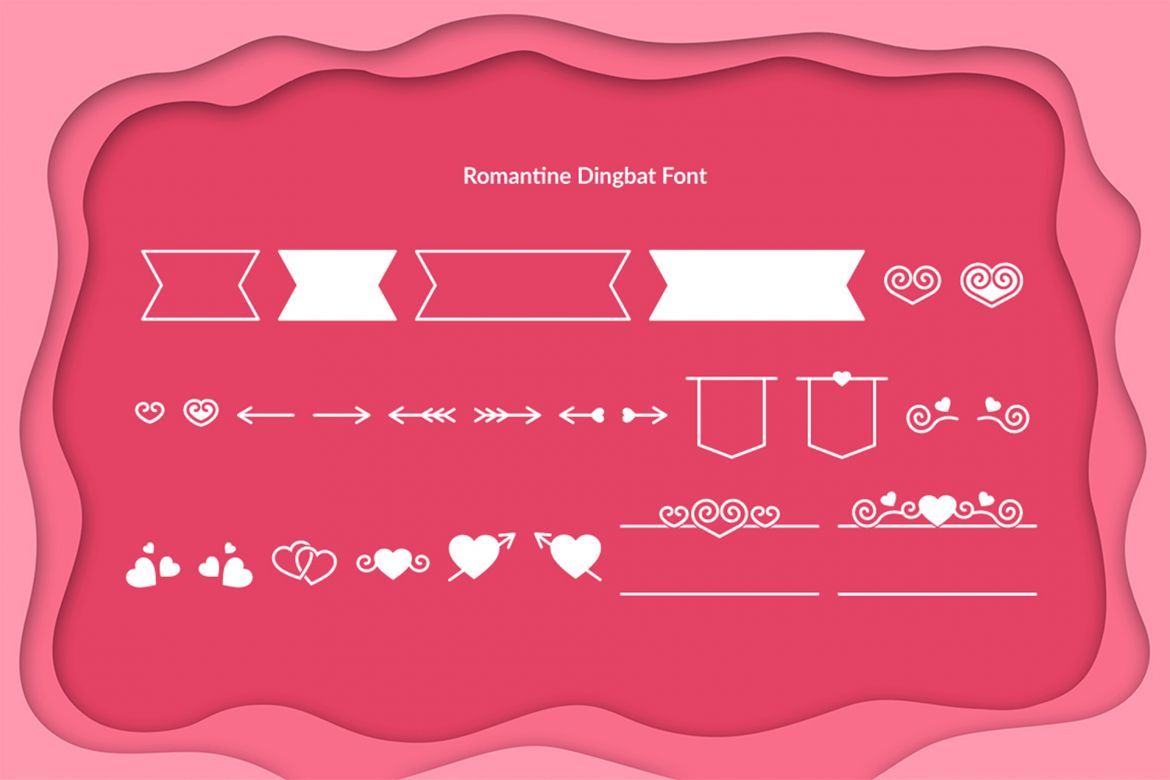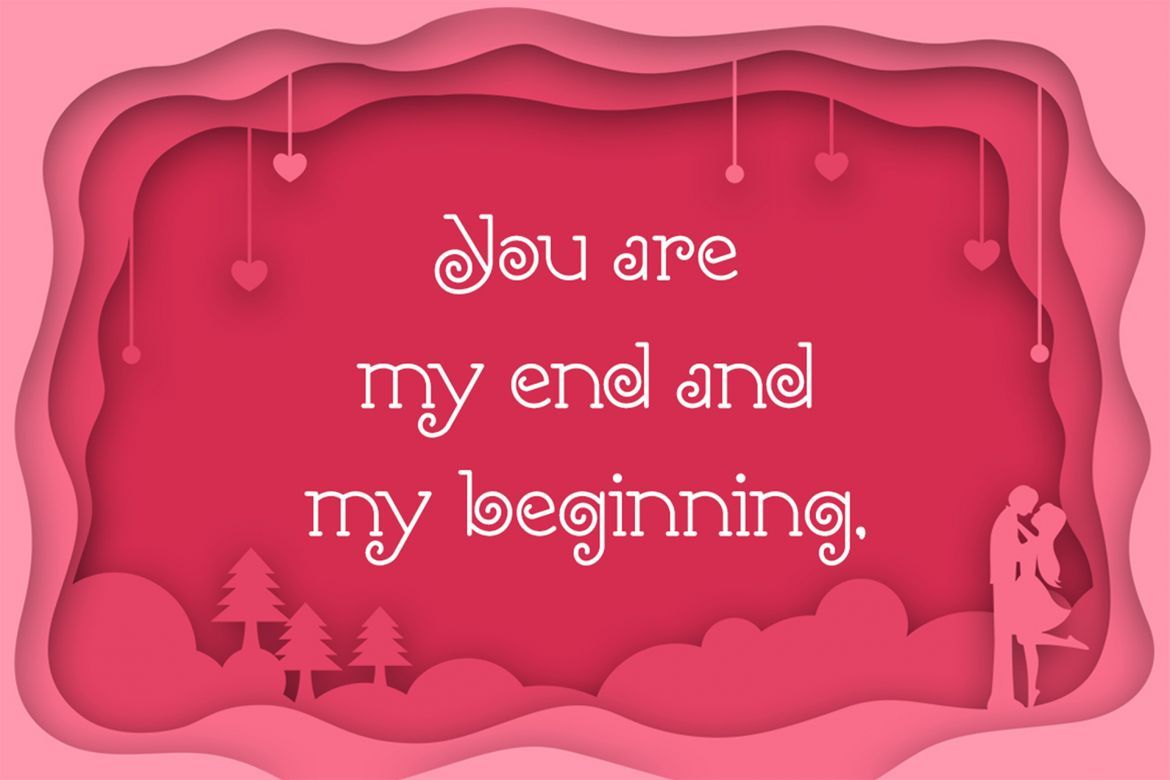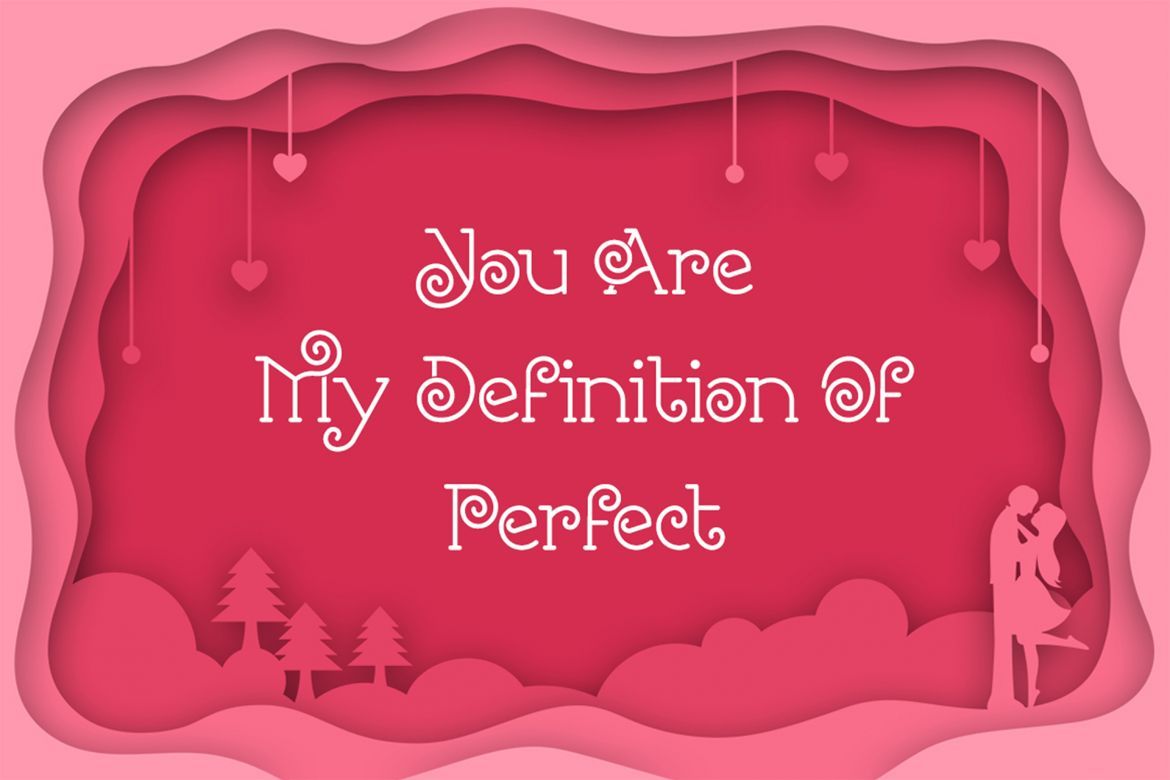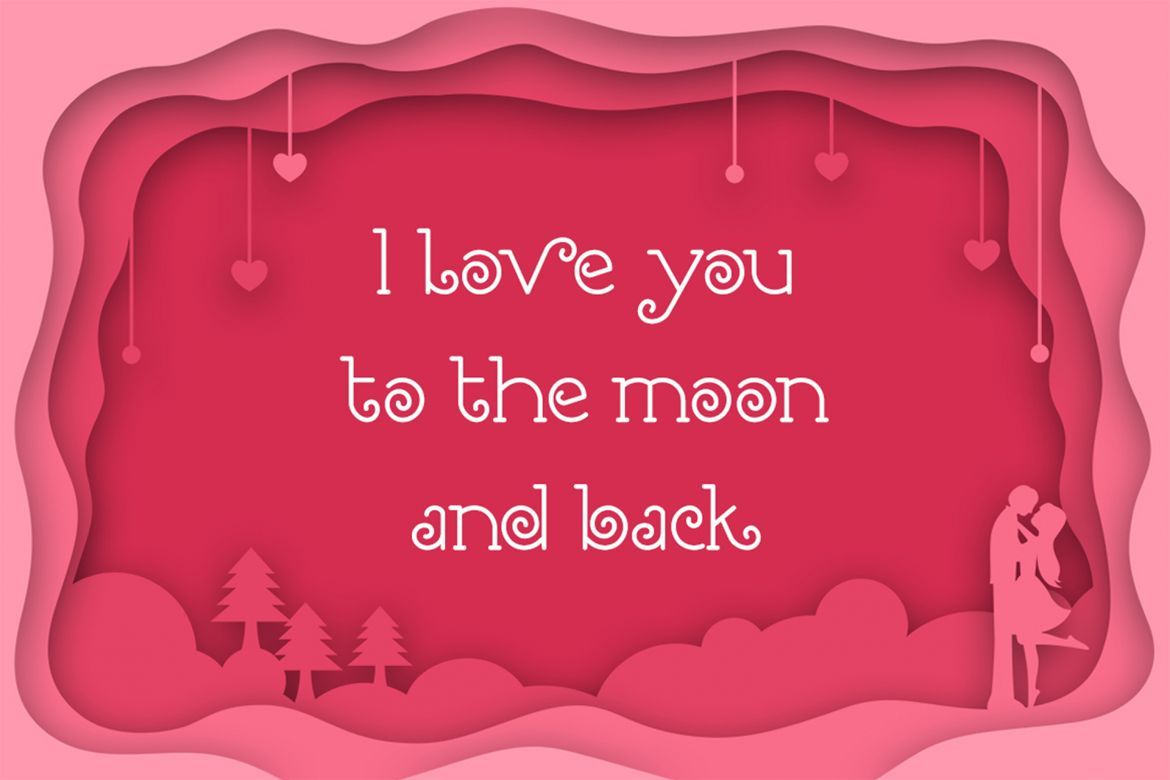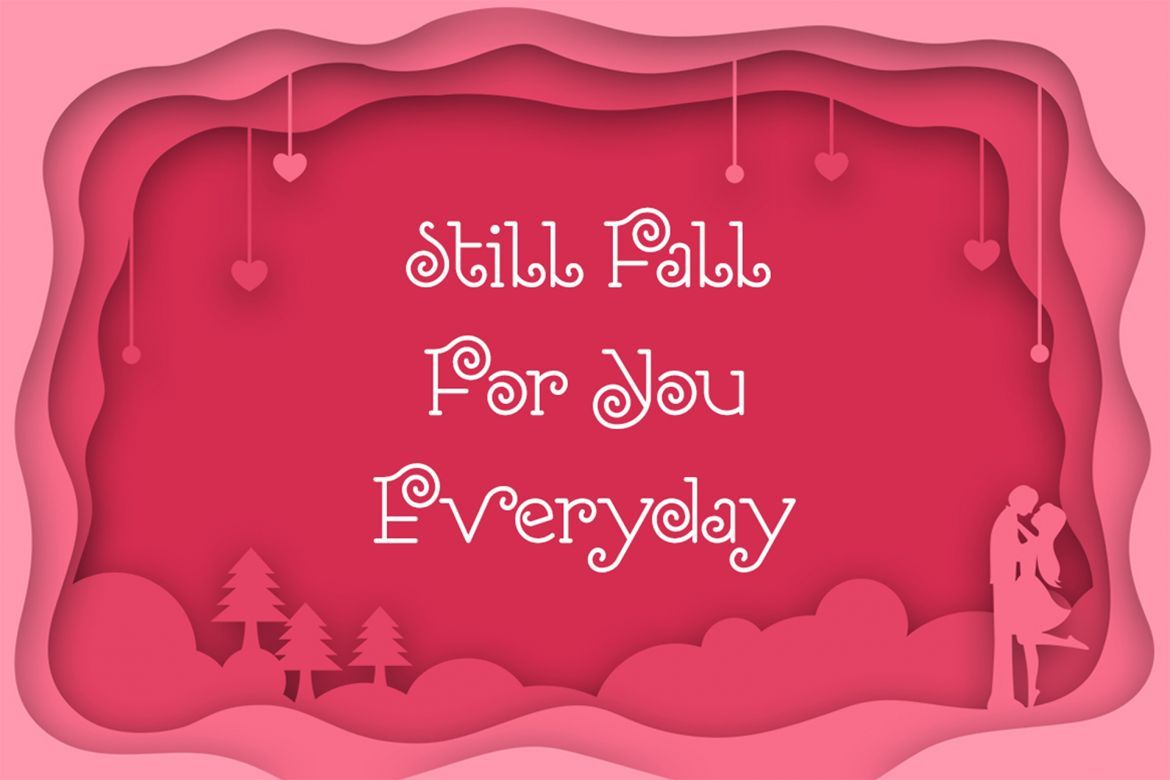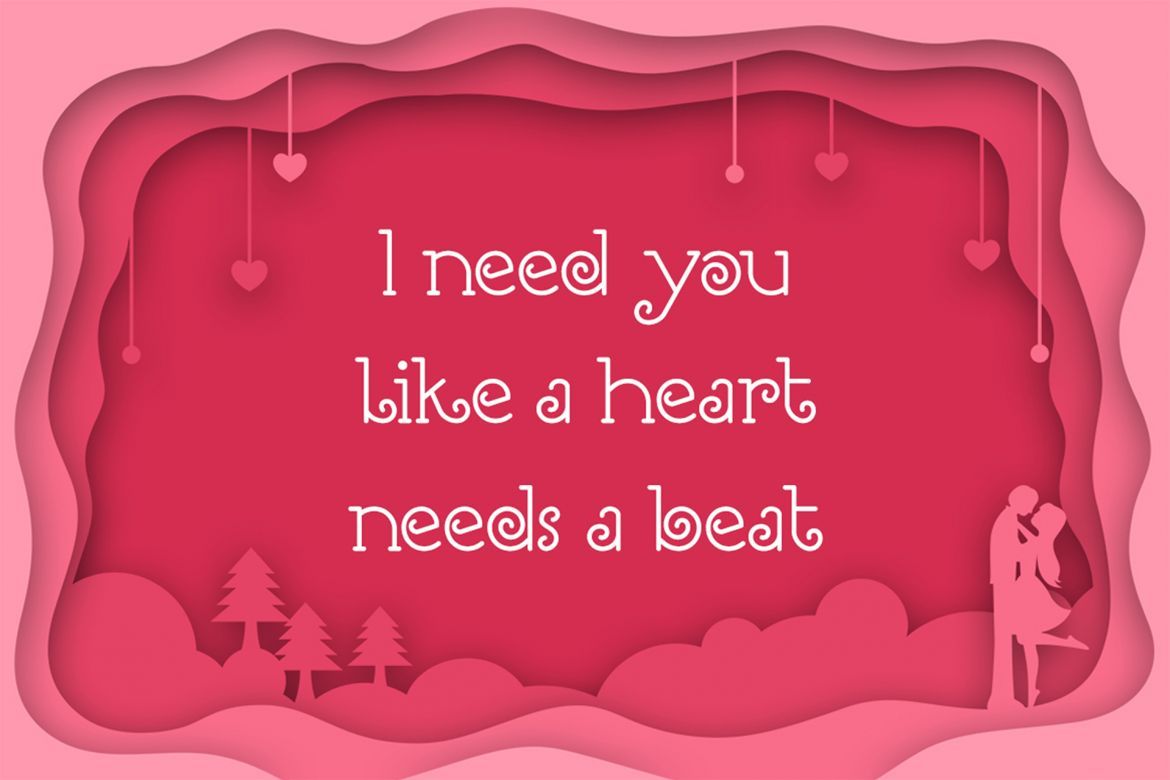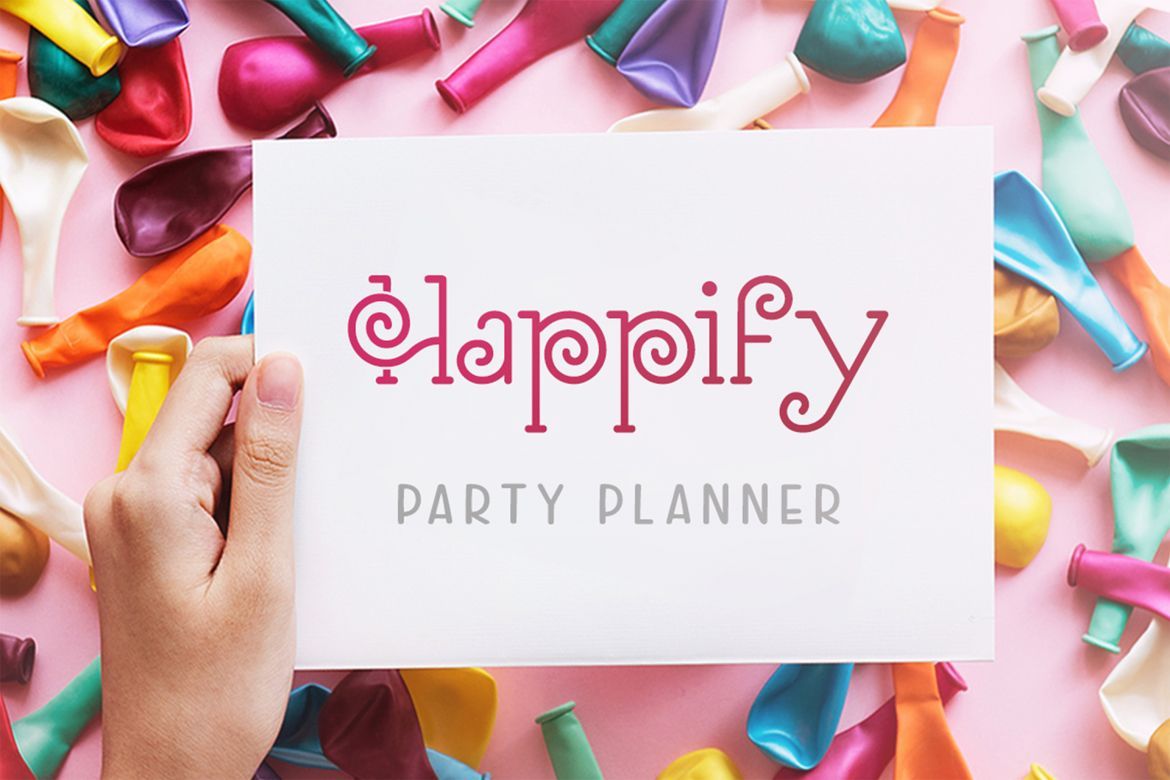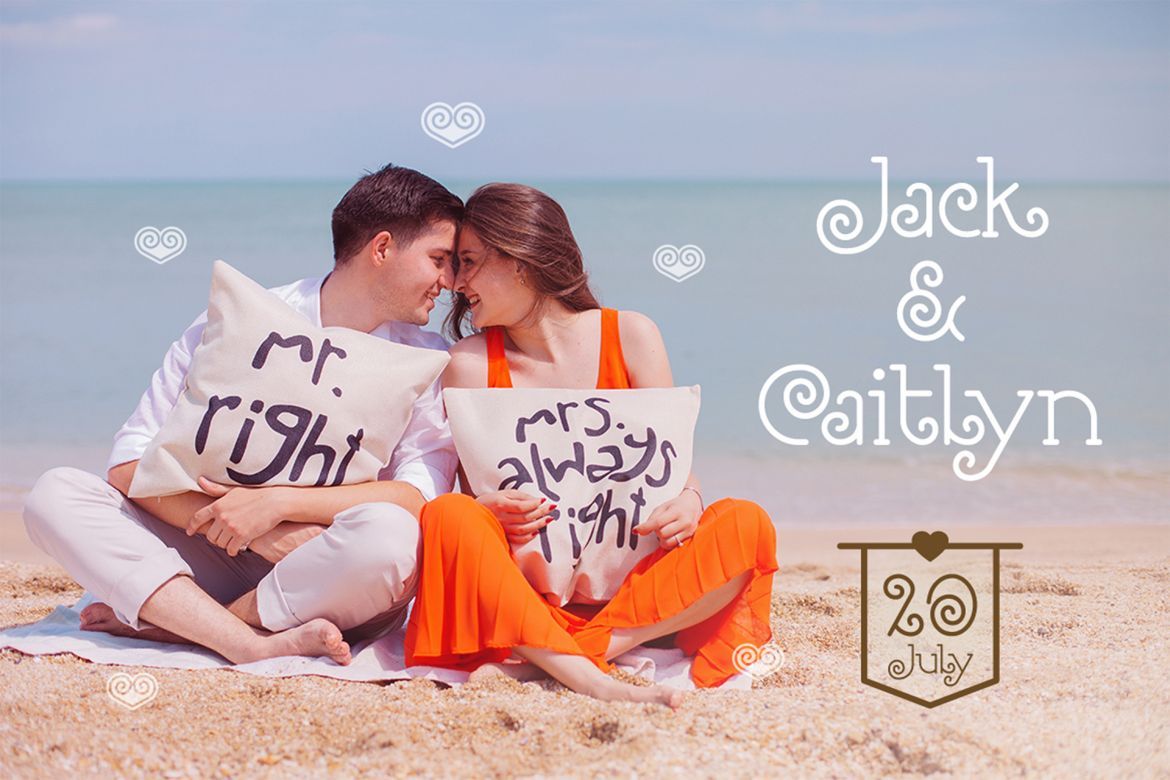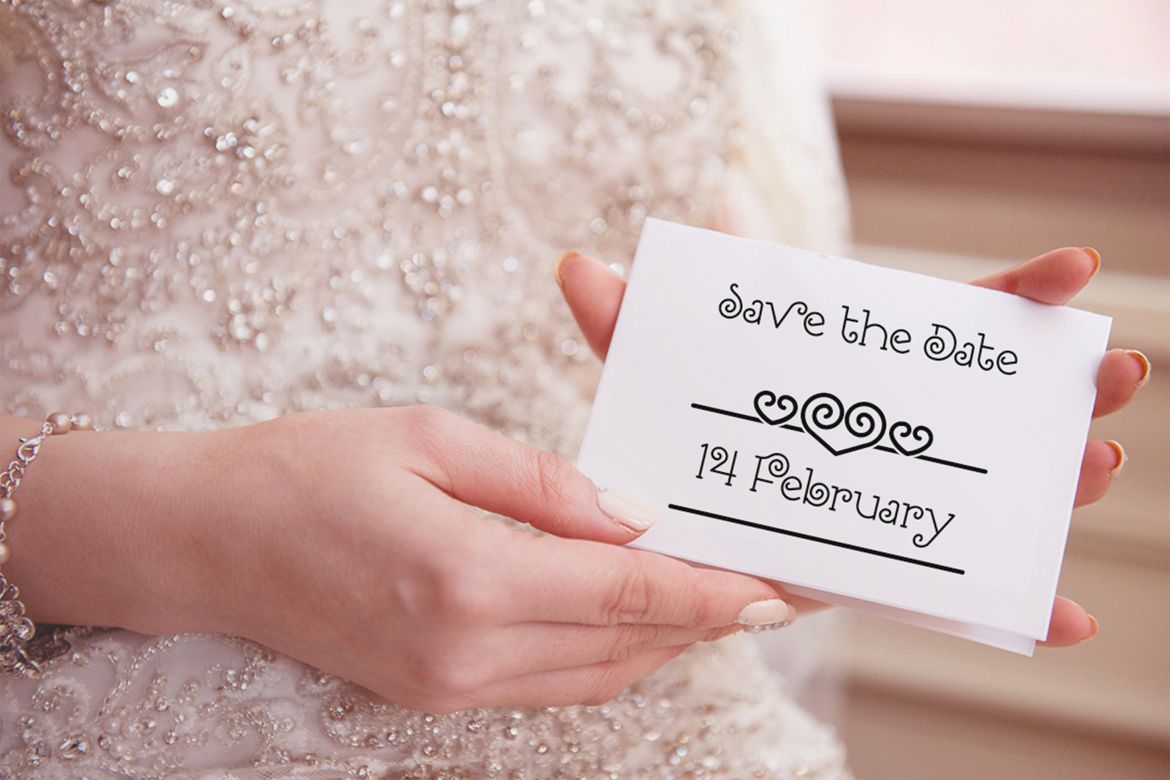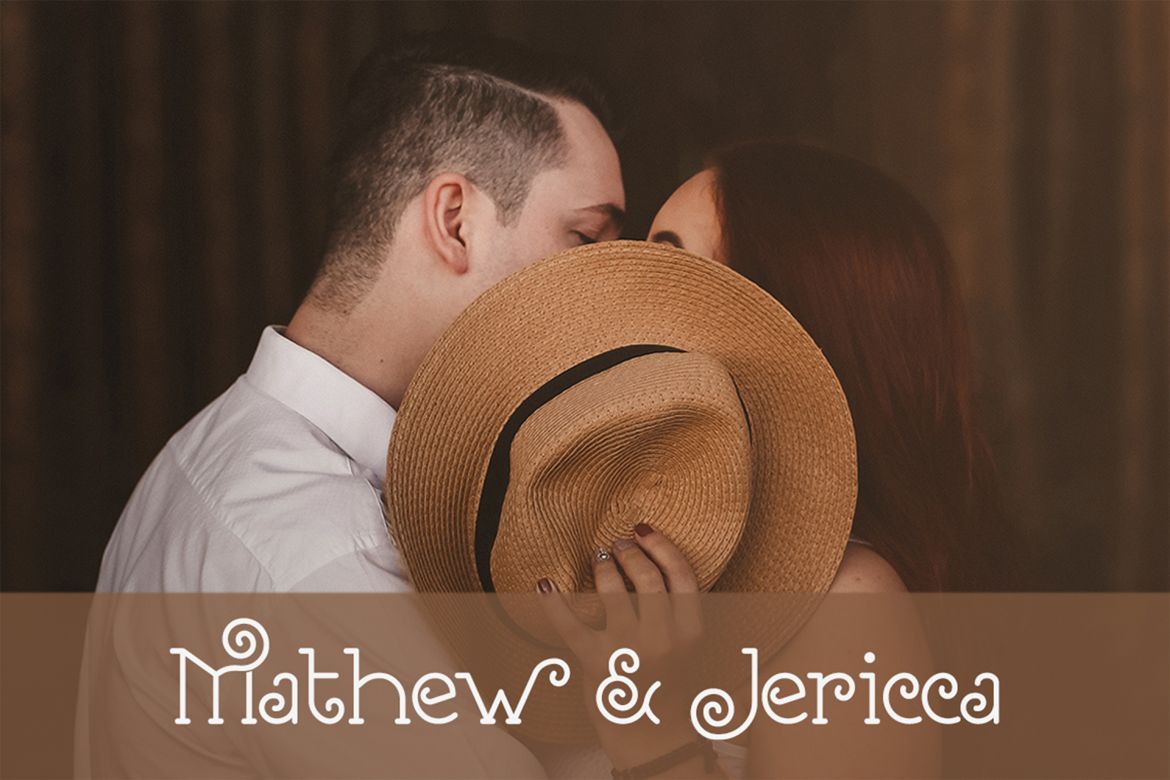
Romantine Font
Romantine font is a romantic and elegant serif font, its perfect for lovely project, branding, crafting, and many more.
• Bonus Lovely Dingbat Font